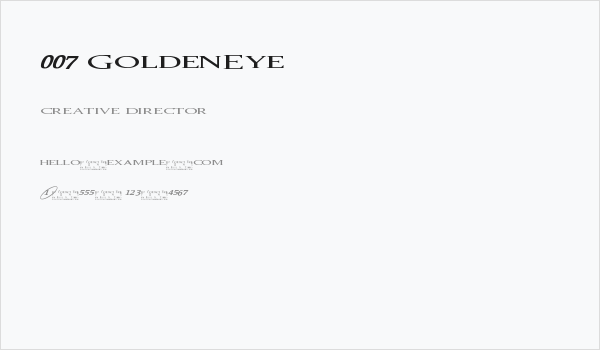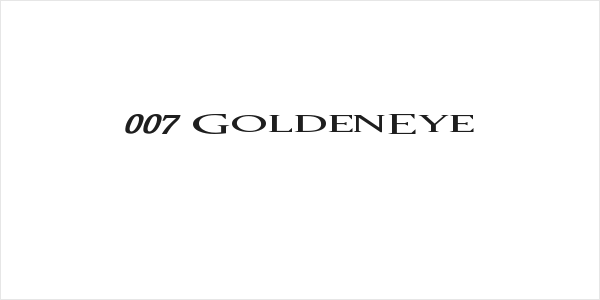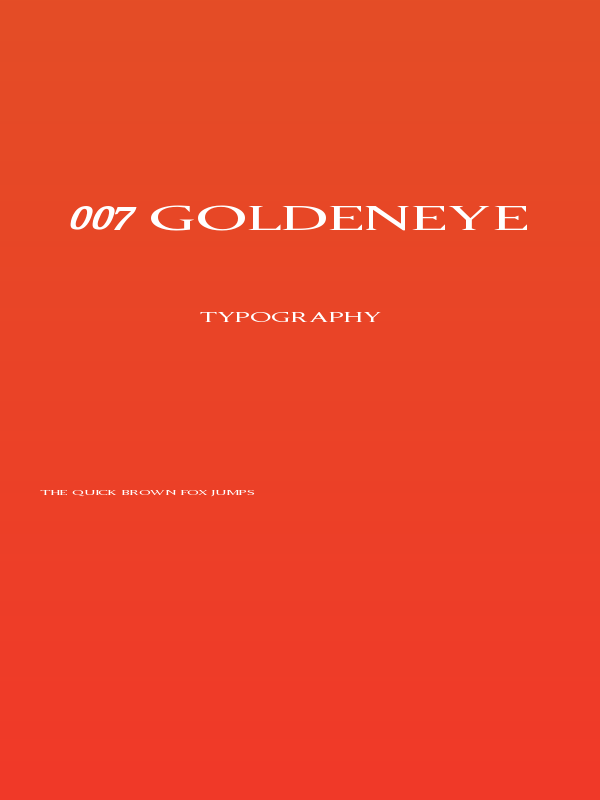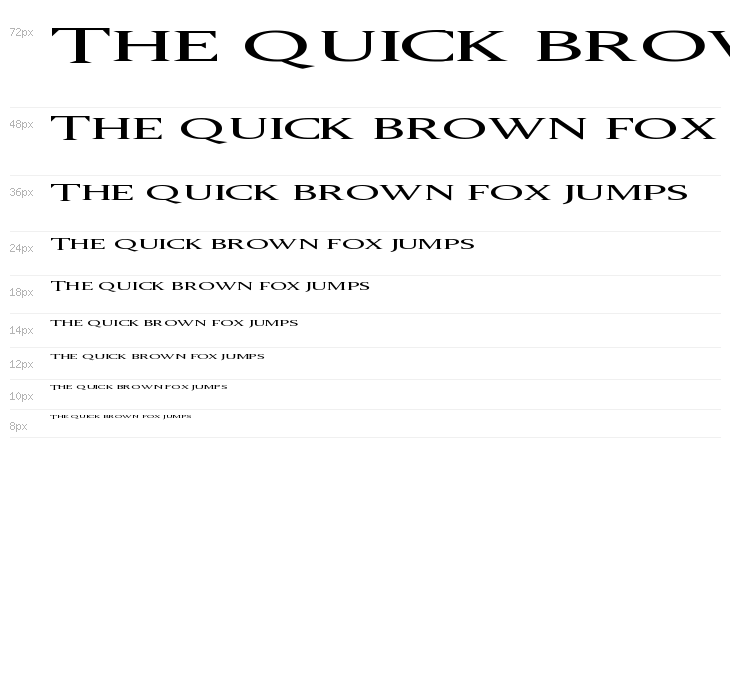
007 GoldenEye Font
007 GoldenEye Description
This font features a classic serif style with elegant, slightly elongated characters that convey a sense of sophistication and formality. The uppercase letters are bold and commanding, while the lowercase letters maintain a consistent flow with a slightly narrower form. The numerals are clear and distinct, making them suitable for both display and text purposes. The special characters are designed to complement the overall aesthetic, ensuring a cohesive look across all uses. The font's design is versatile, making it suitable for a variety of applications, from formal documents to branding materials.
| Proposed Projects | Ideal for formal documents, branding, book covers, and luxury product packaging. |